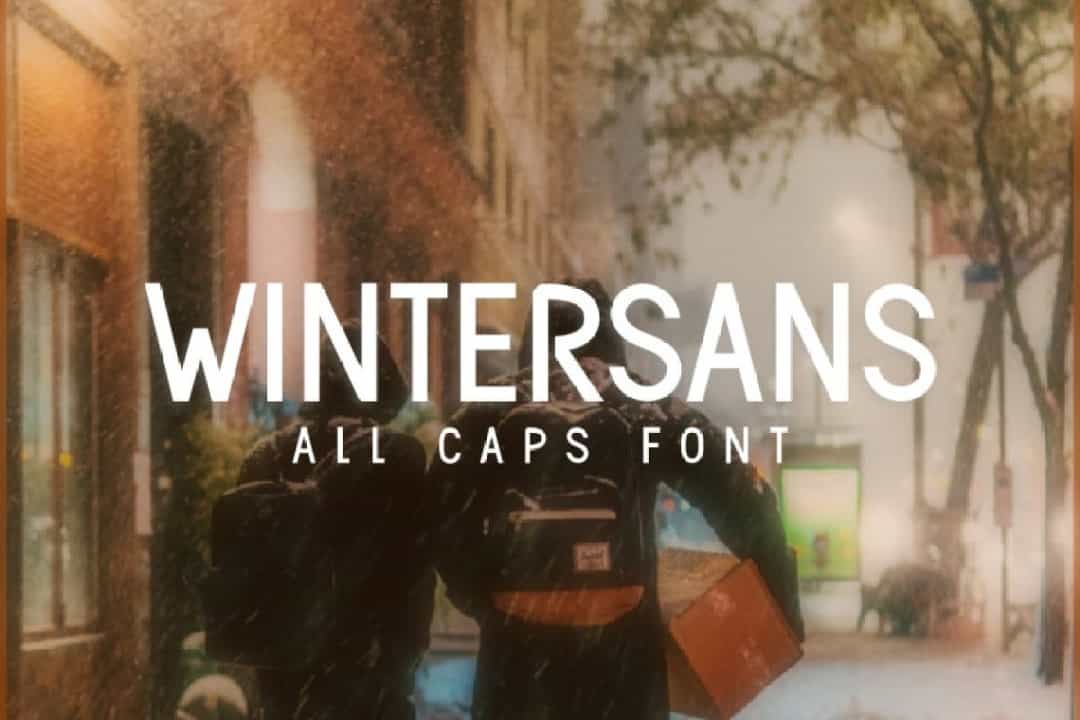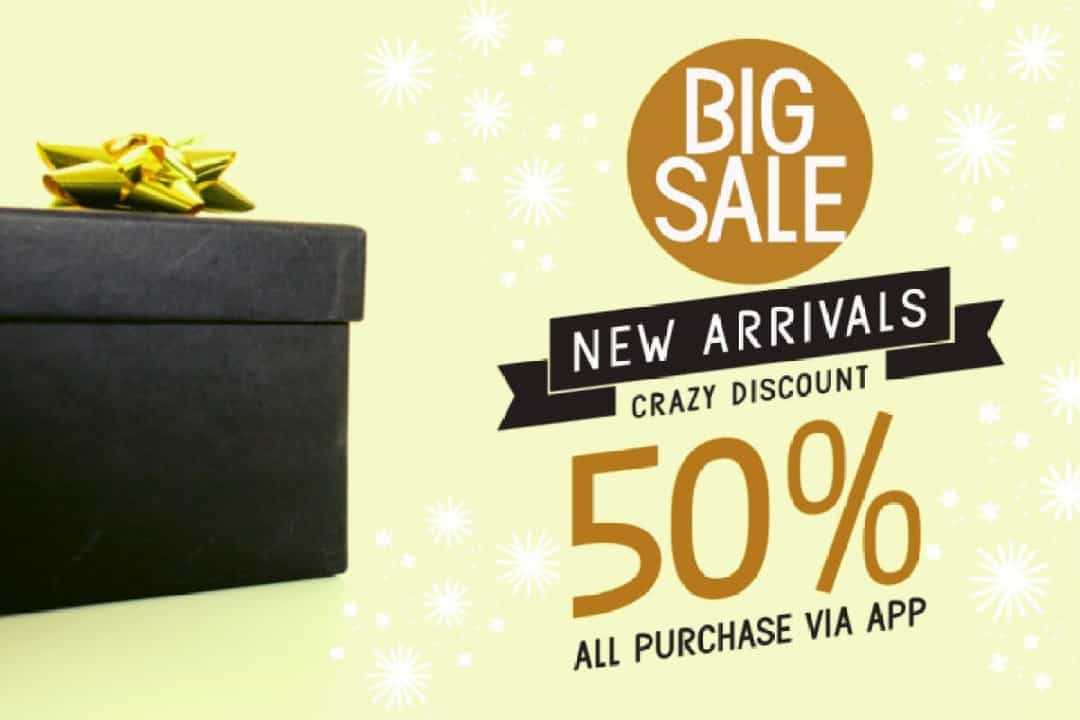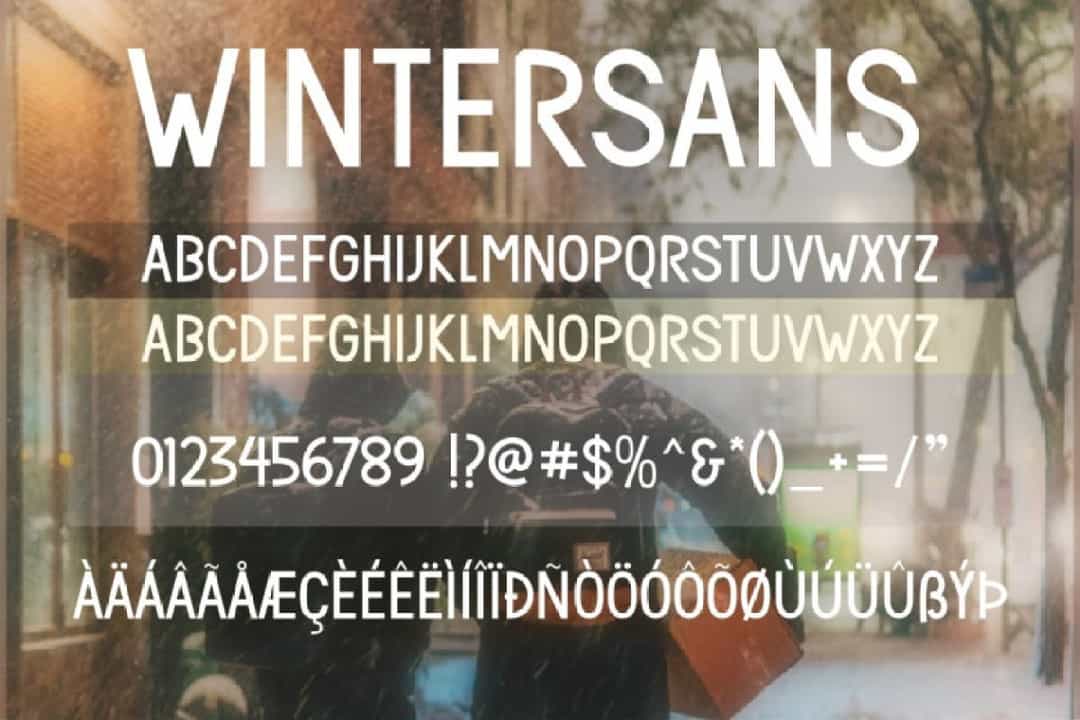
Wintersans Typeface is a sans serif font, which is highly recognisable. It is as professional as it can be and can be used on cluttered backgrounds or as a heading!